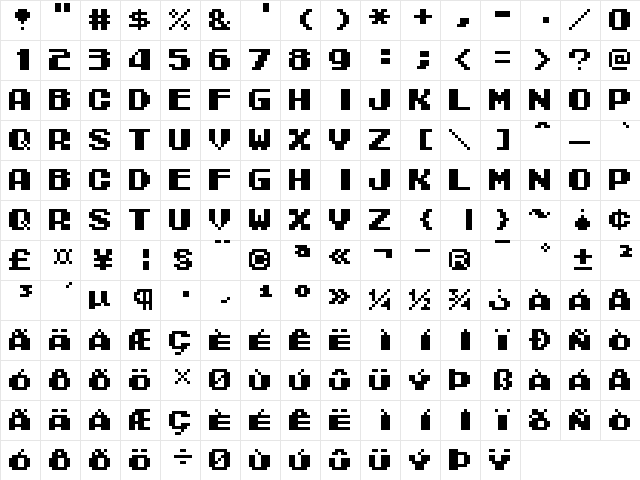
Tecmo Bowl Regular
| Designer | TheWolfBunny |
Design Context for Tecmo Bowl Typeface
Tecmo Bowl offers clean, dependable letterforms without strong stylistic allegiance, making it a practical choice for designers who need flexibility.